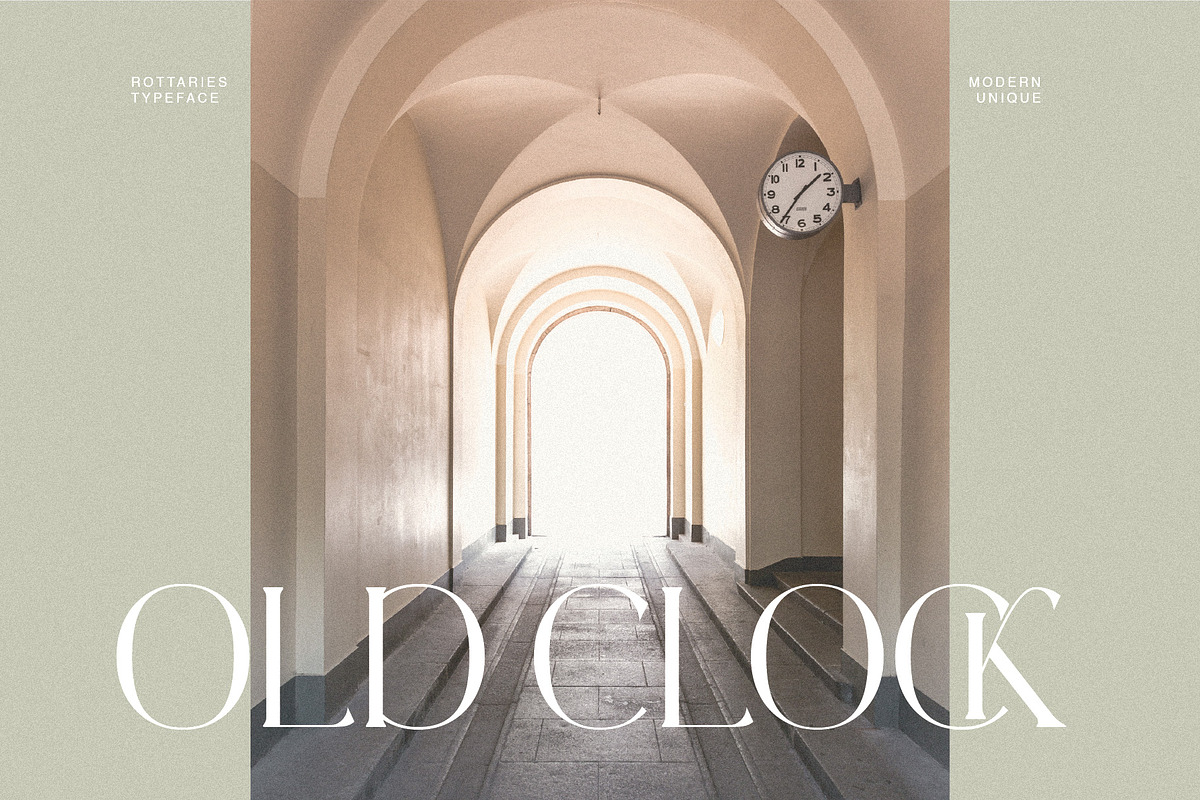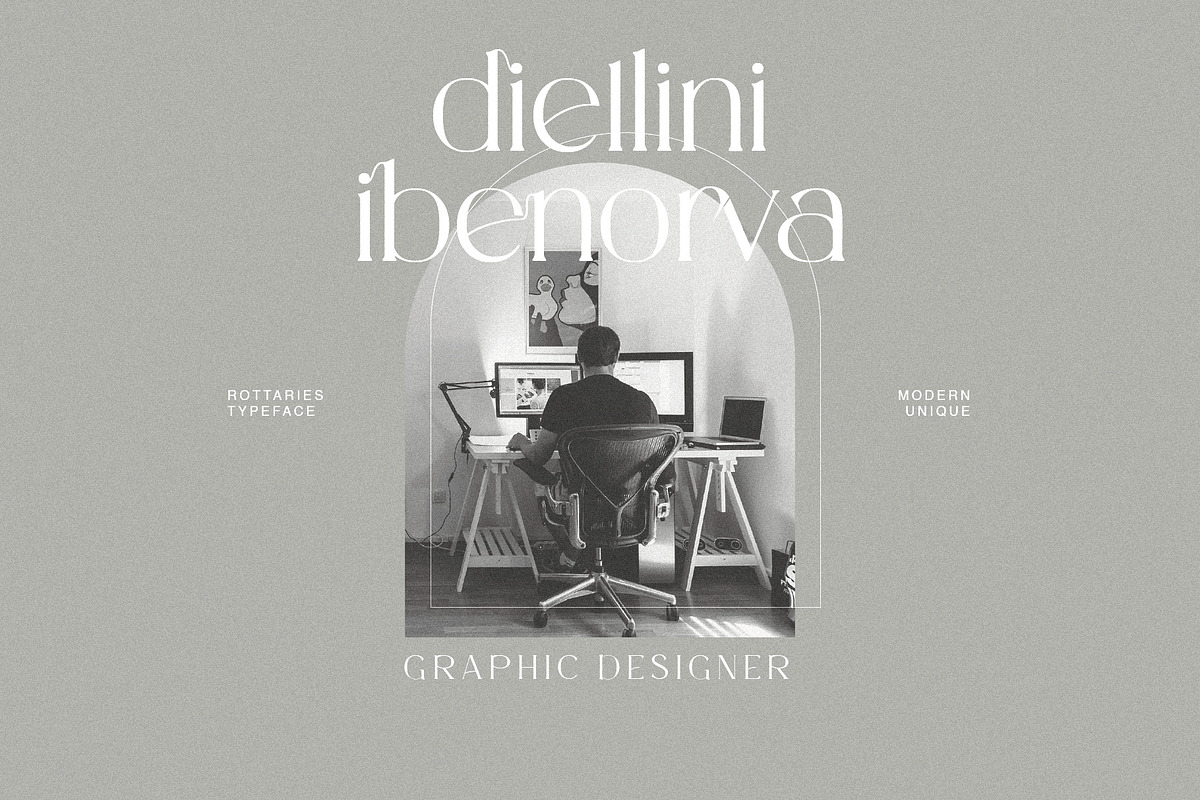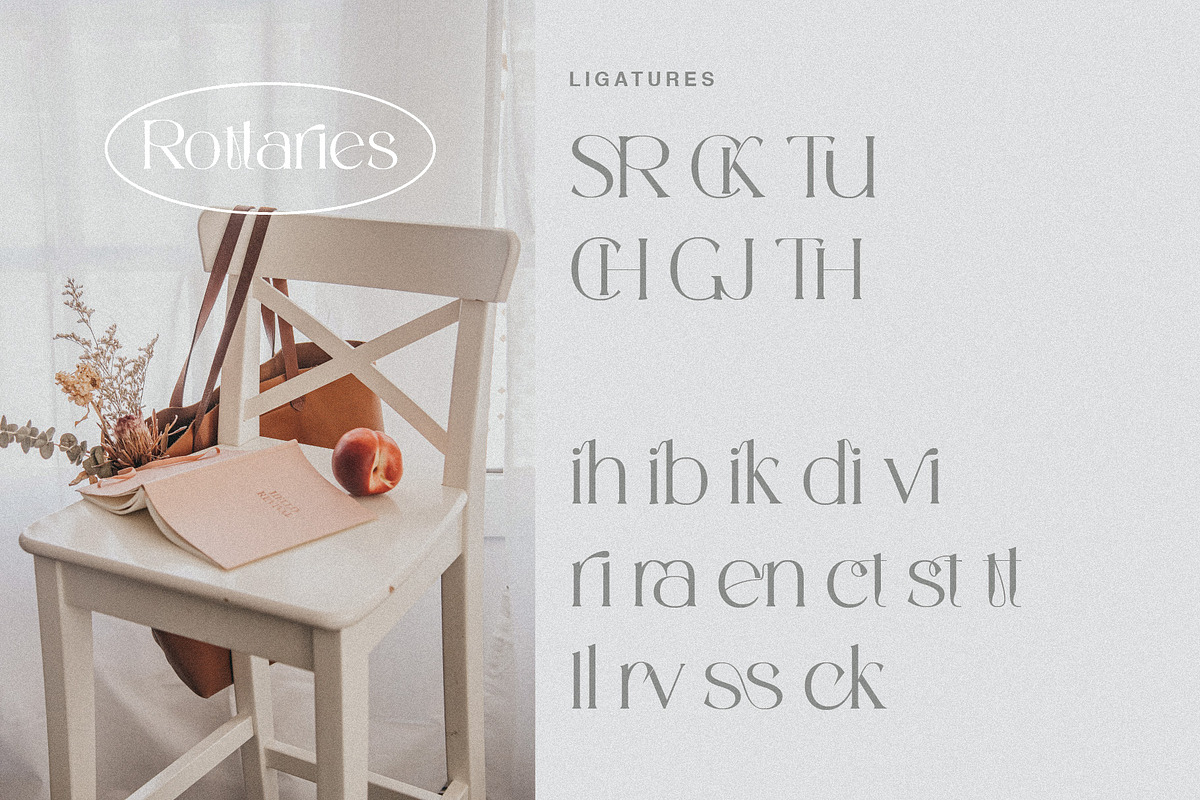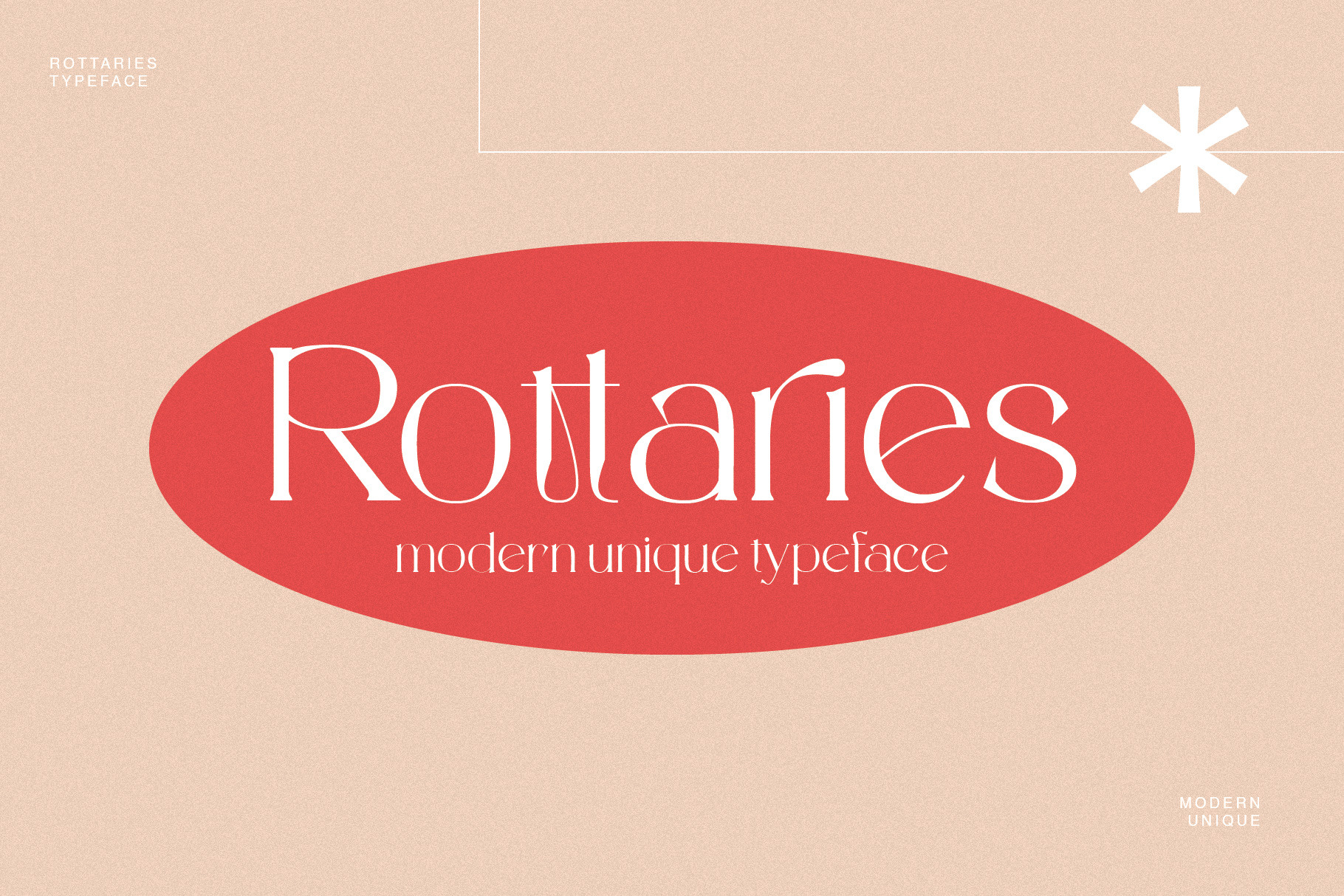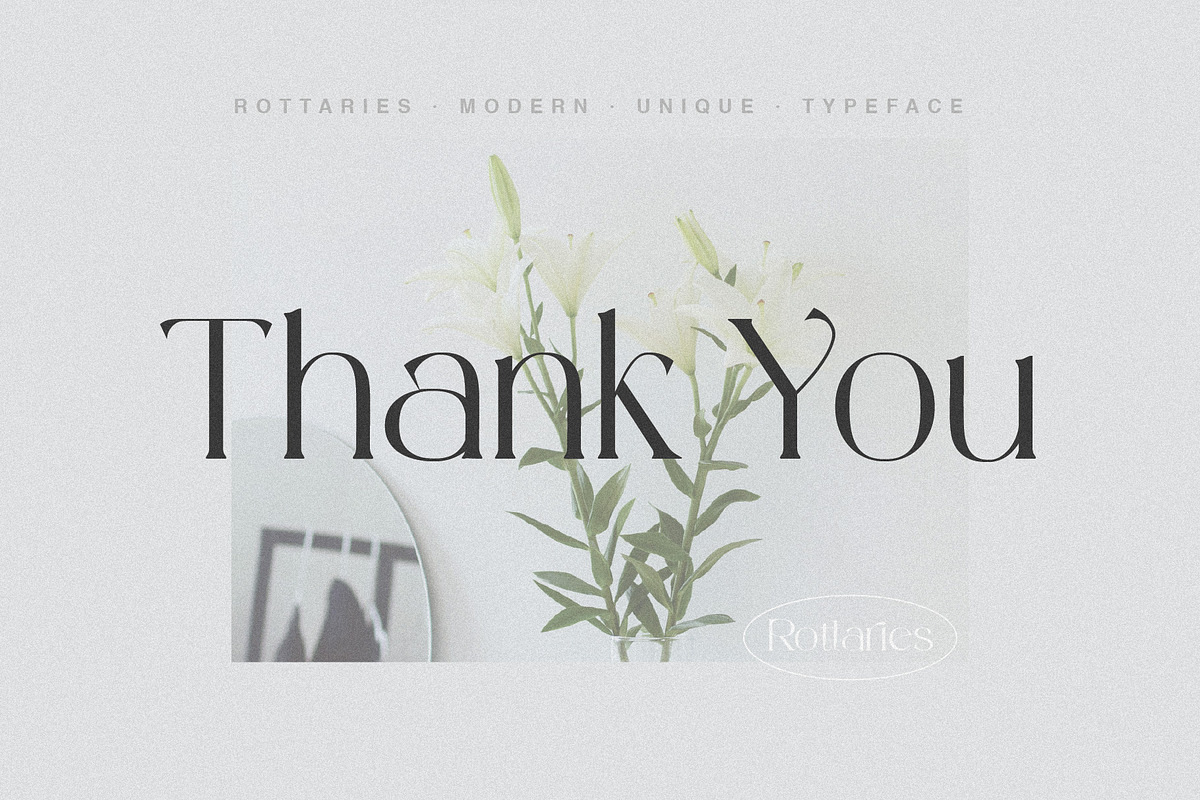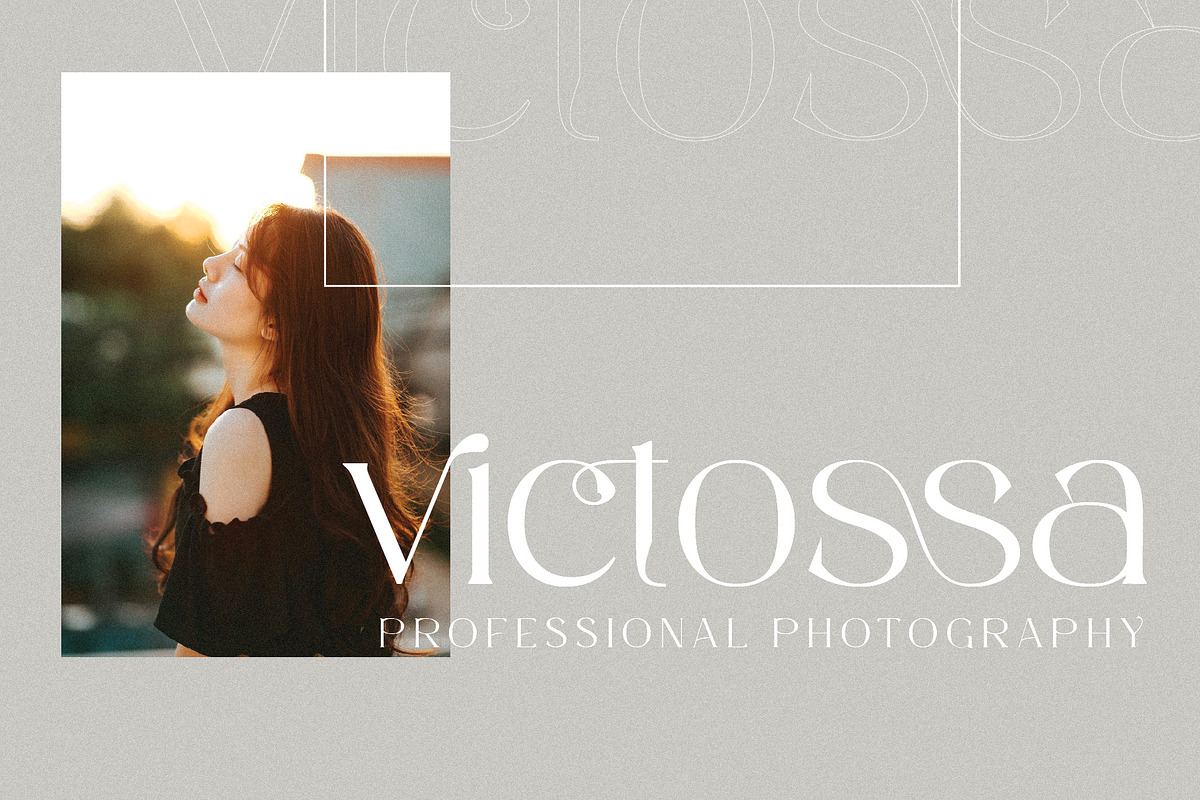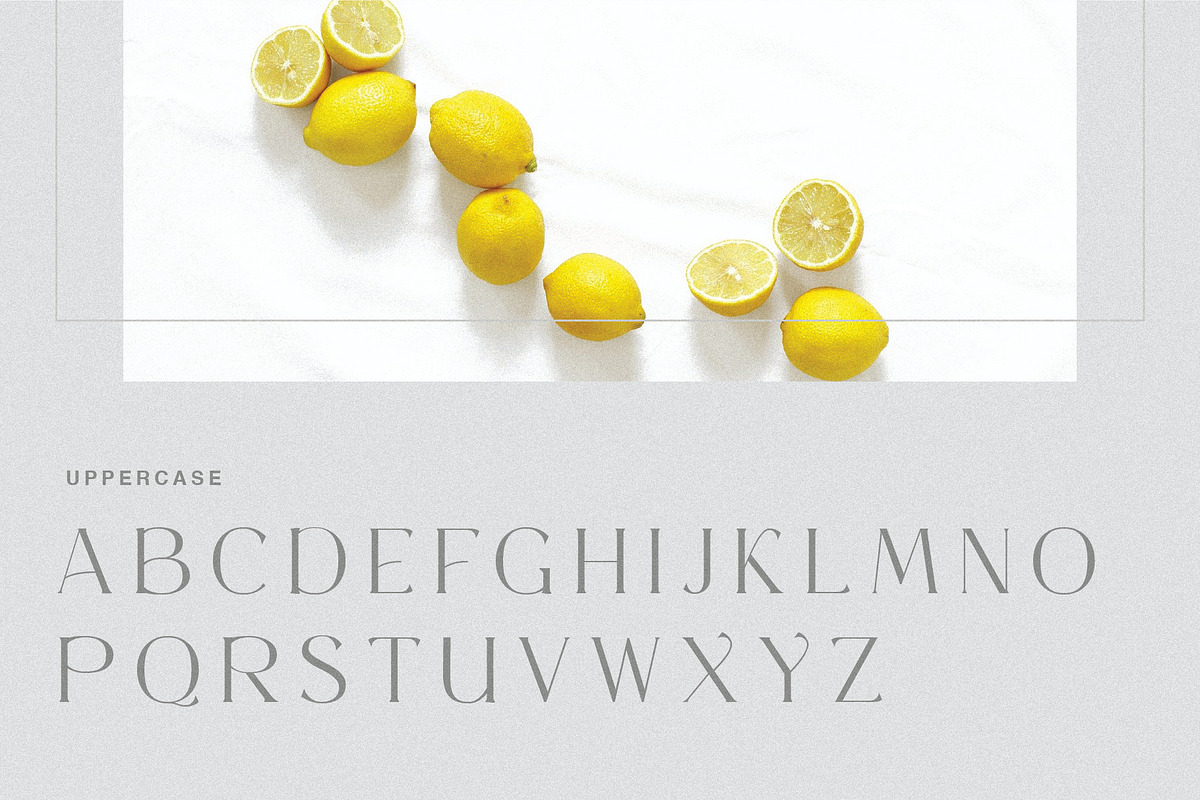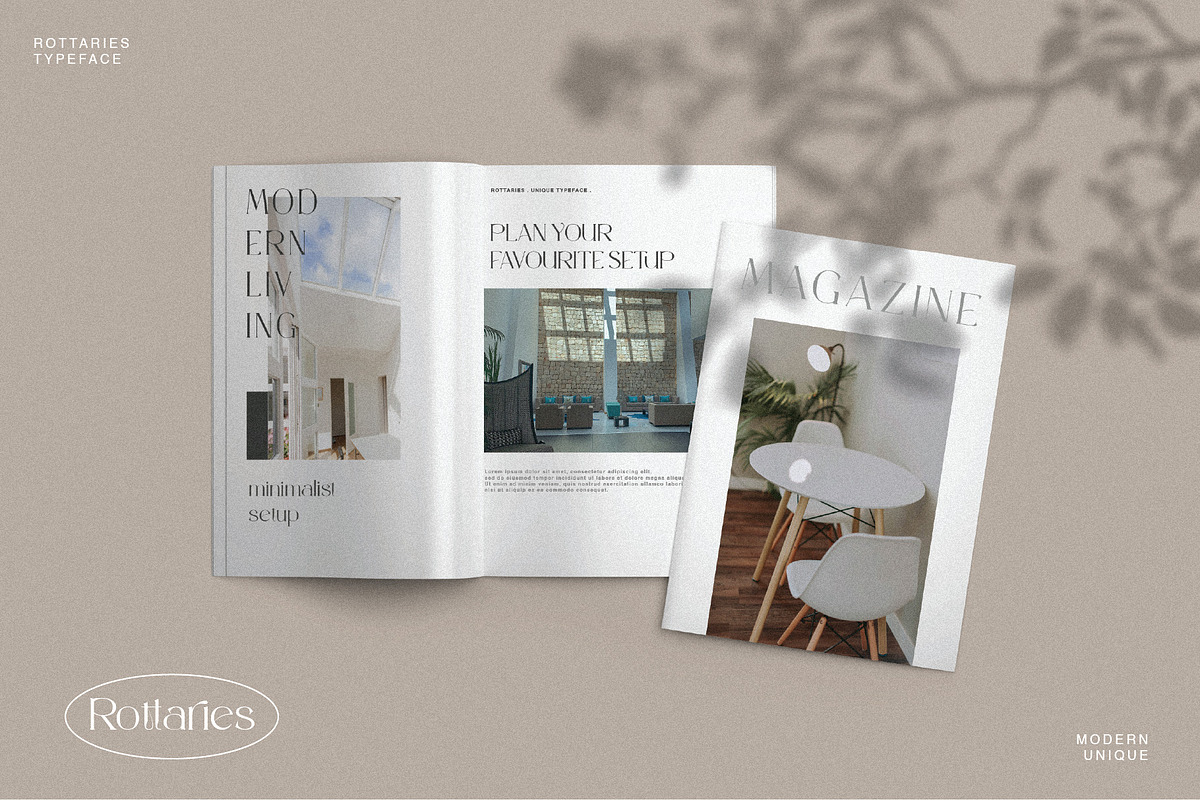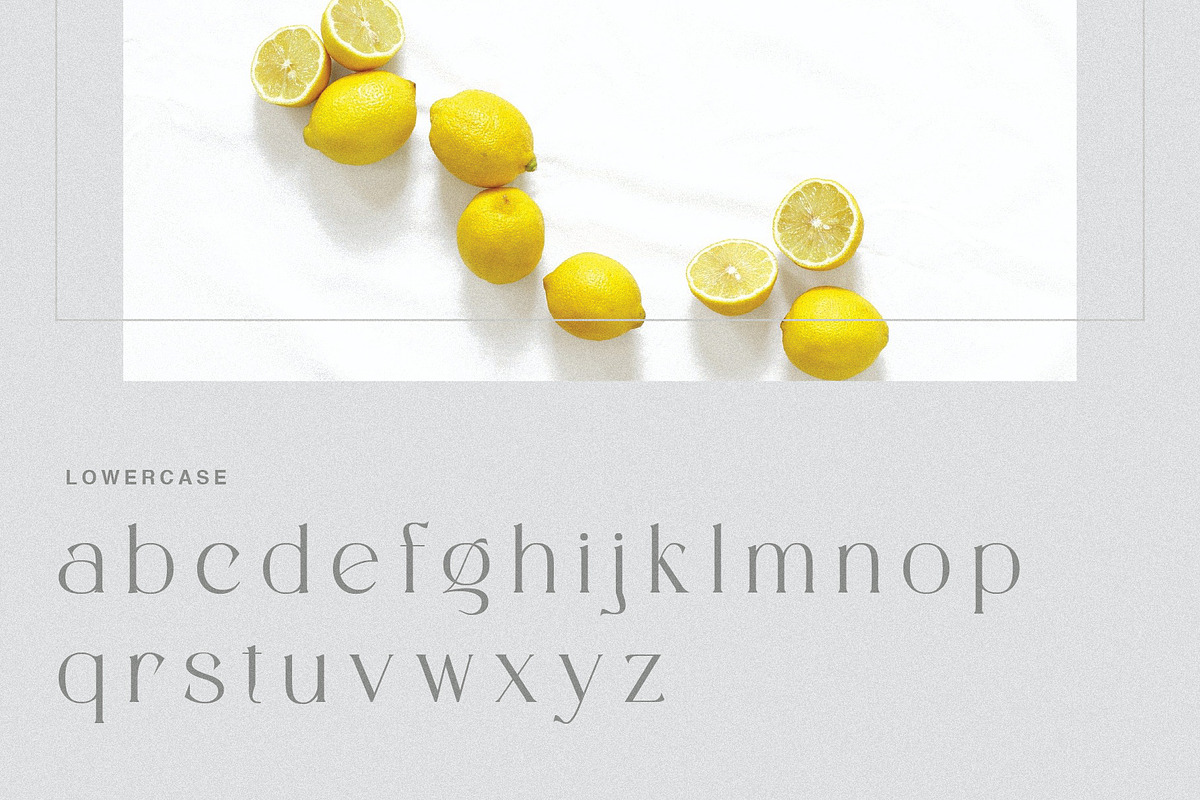
Rottaries - Modern Unique Typeface
Introducing our new "Rottaries", Modern ligature typeface with Unique, Classy and Stylish. Is perfect for branding, logos, invitation, master heads, and more.
Rottaries Features :